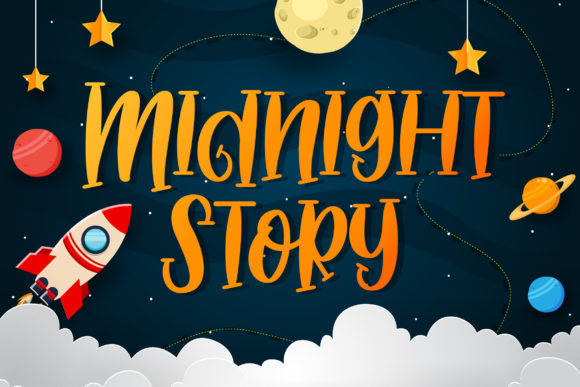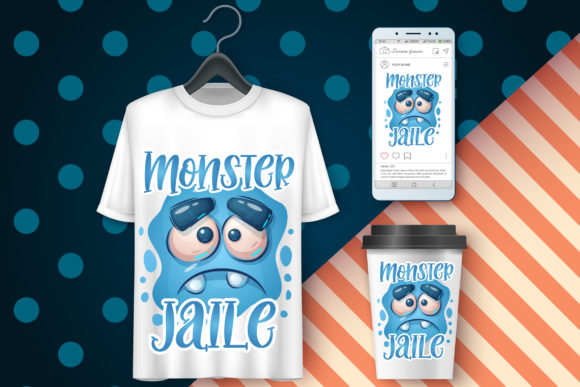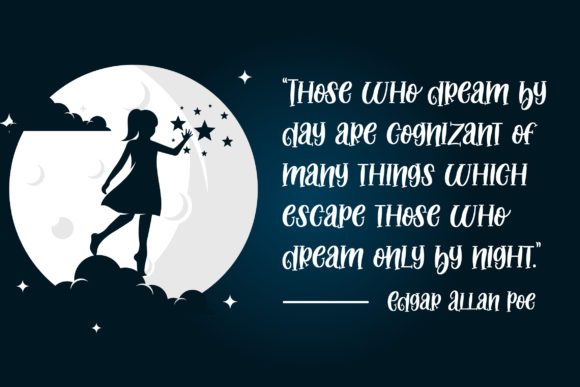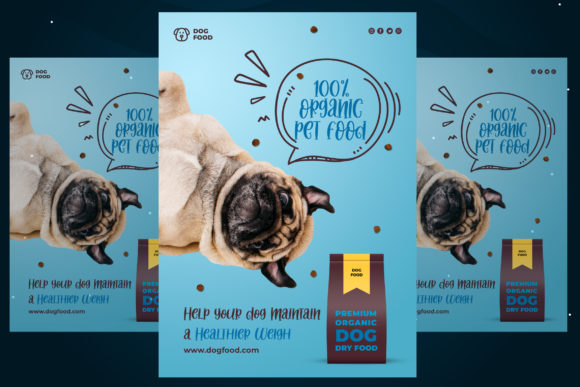
About Midnight Story Font
Midnight Story is an amazing handwritten font. This cute font will make your designs stand out! It will elevate a wide range of design projects to the highest level, be it branding, headings, wedding designs, invitations, signatures, logos, labels, and much more!